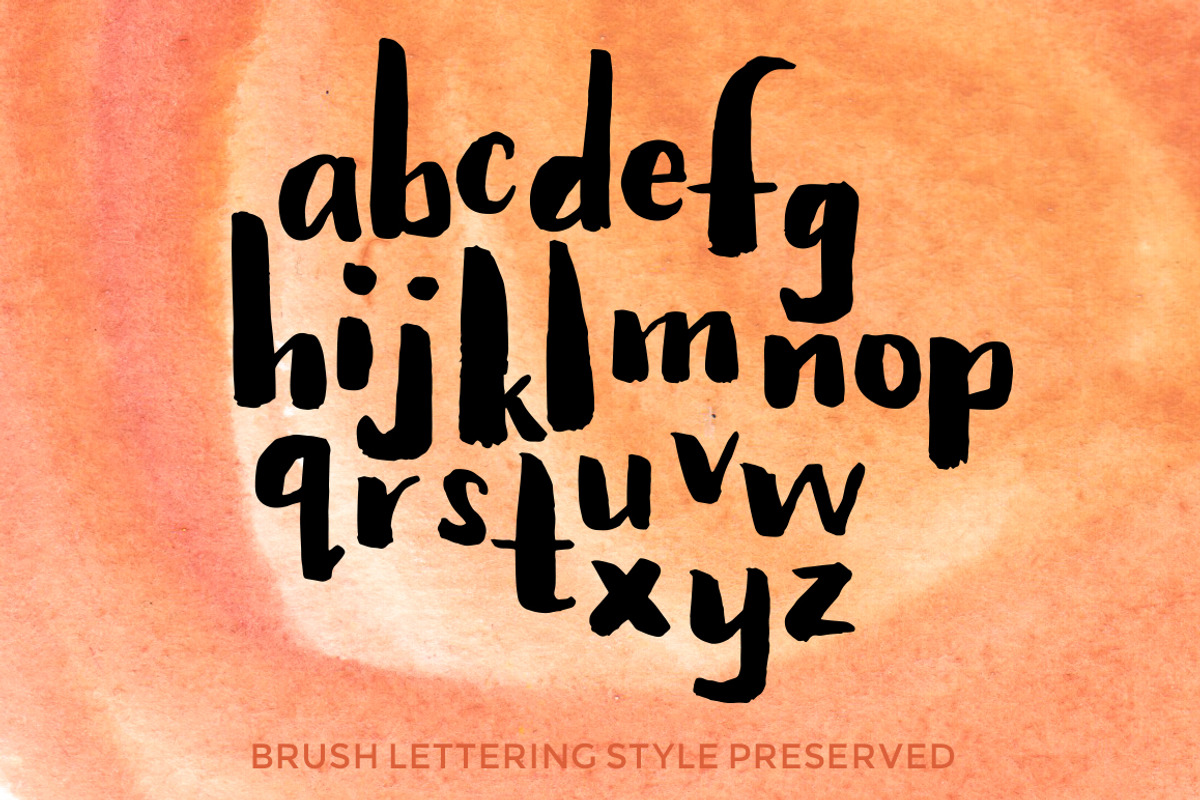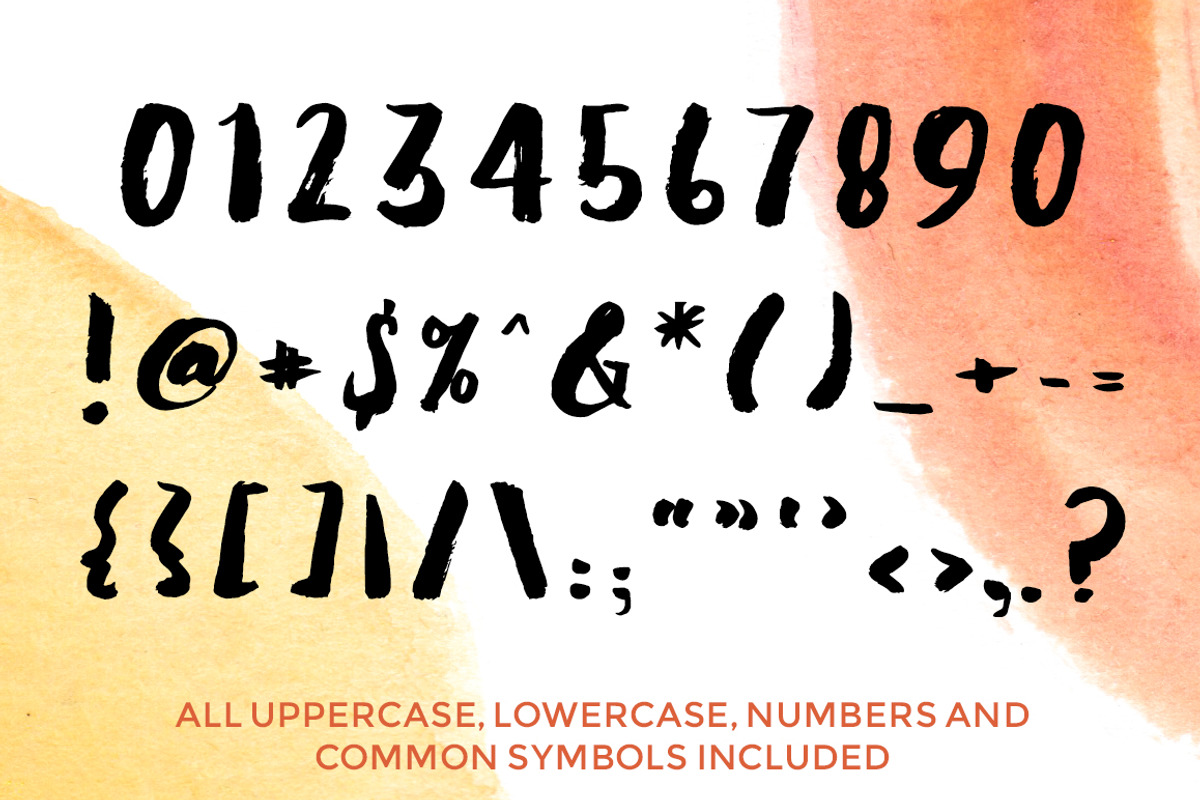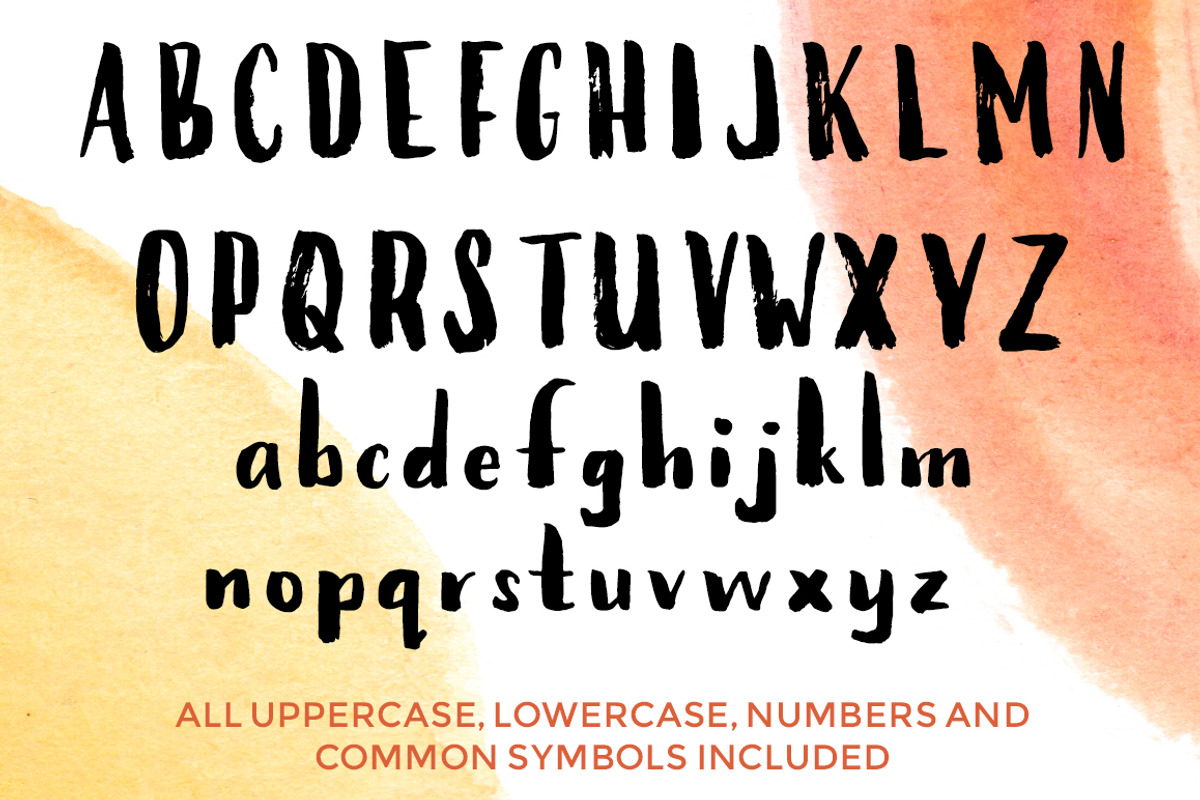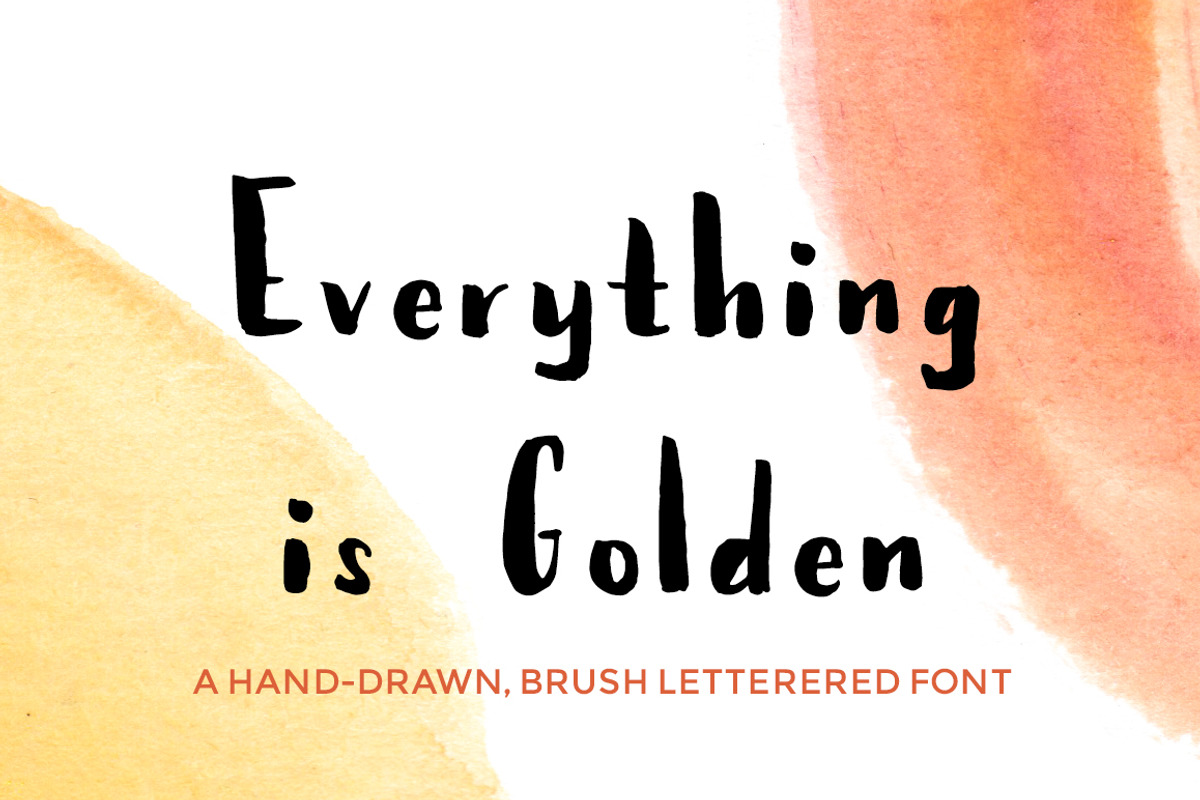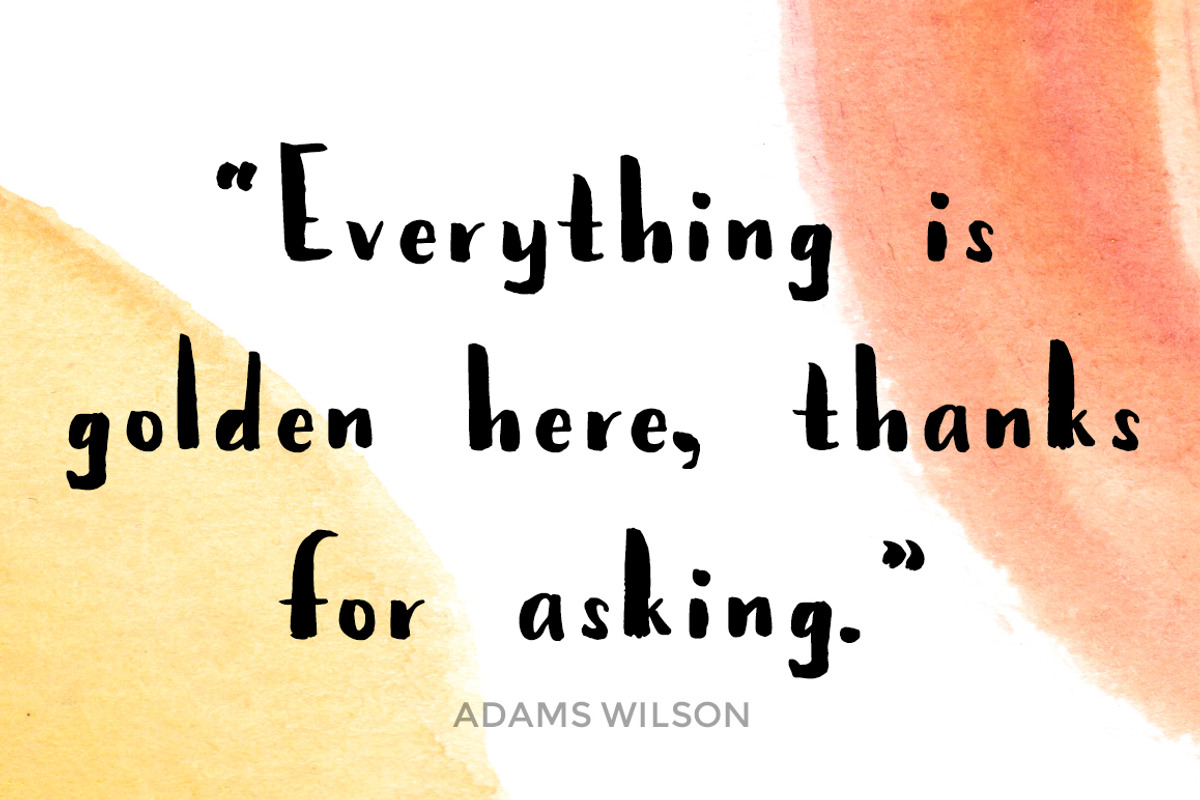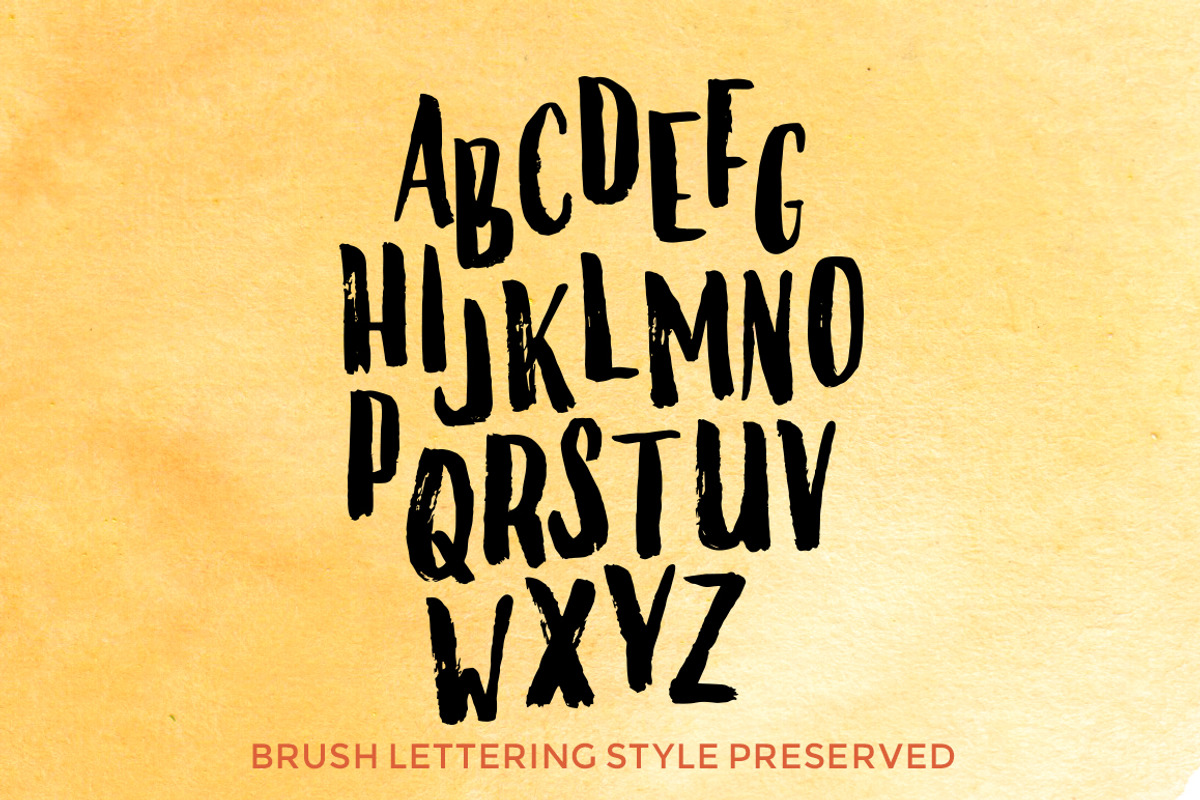
Everything Is Golden - Brush Font
Everything Is Golden - Brush Font by Hello Brio is a font selected for branding, posters, packaging, typography.
- The font was carefully created by hand using a thick brush marker and features a comprehensive set of glyphs including uppercase, lowercase,
Why Everything Is Golden - Brush Font is worth a look
Everything Is Golden - Brush Font by Hello Brio fits naturally into Branding, posters, packaging, typography.